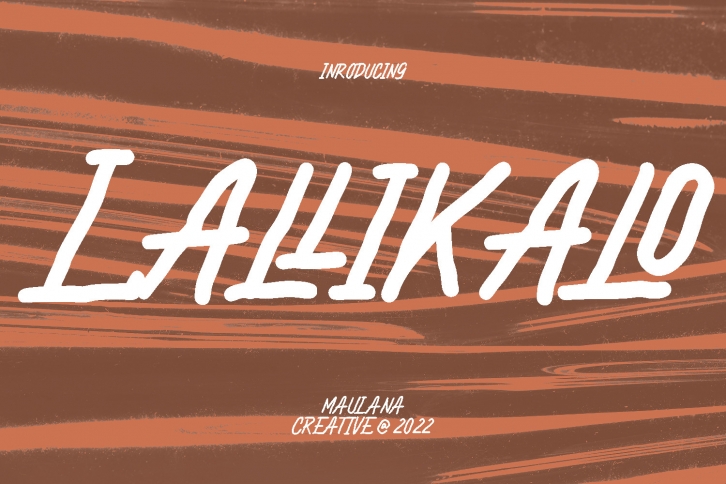
Lallikalo is a relaxed, casual and brushed display font. This font is suitable for designs such as t-shirts, sportswear, logos, advertisements, clothing, and more.